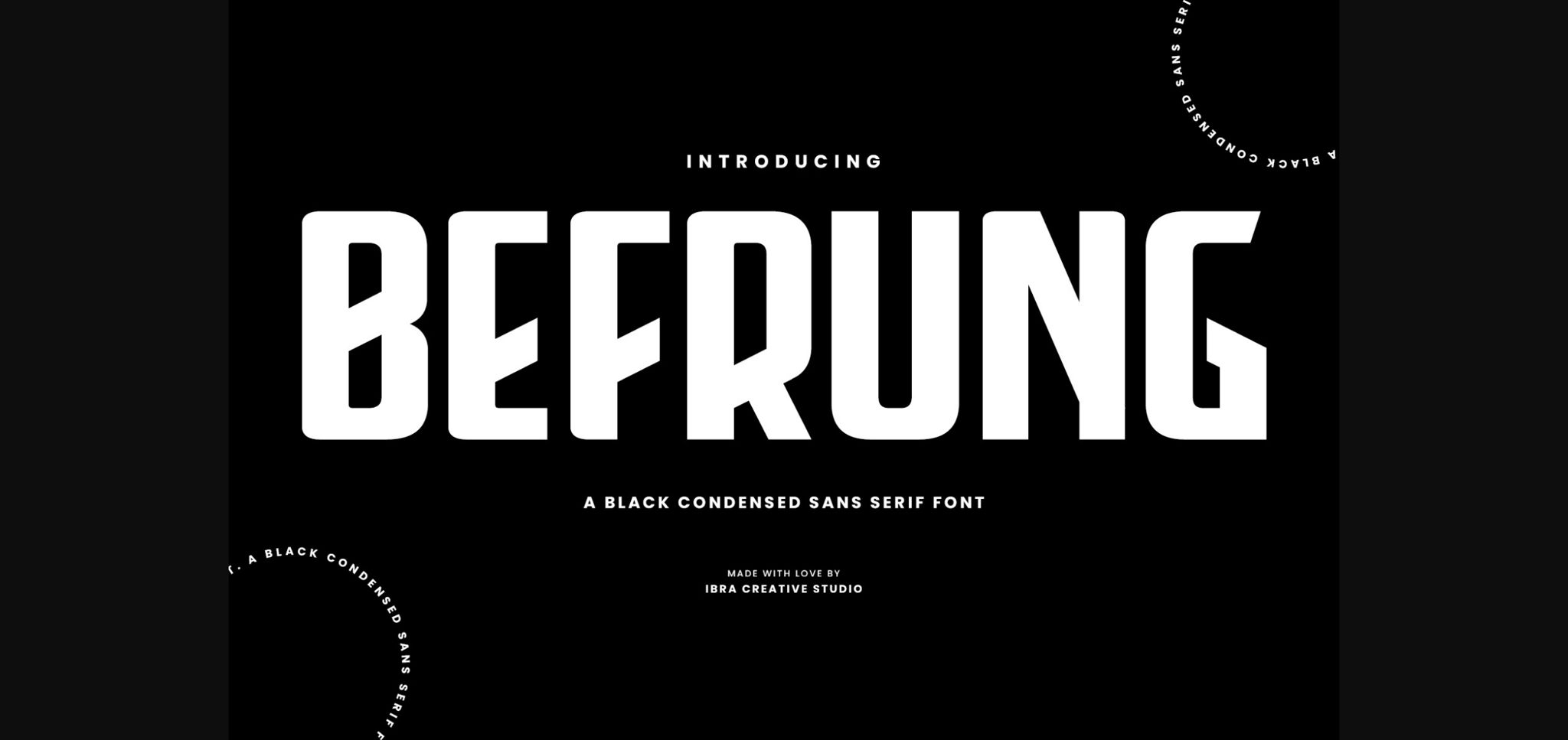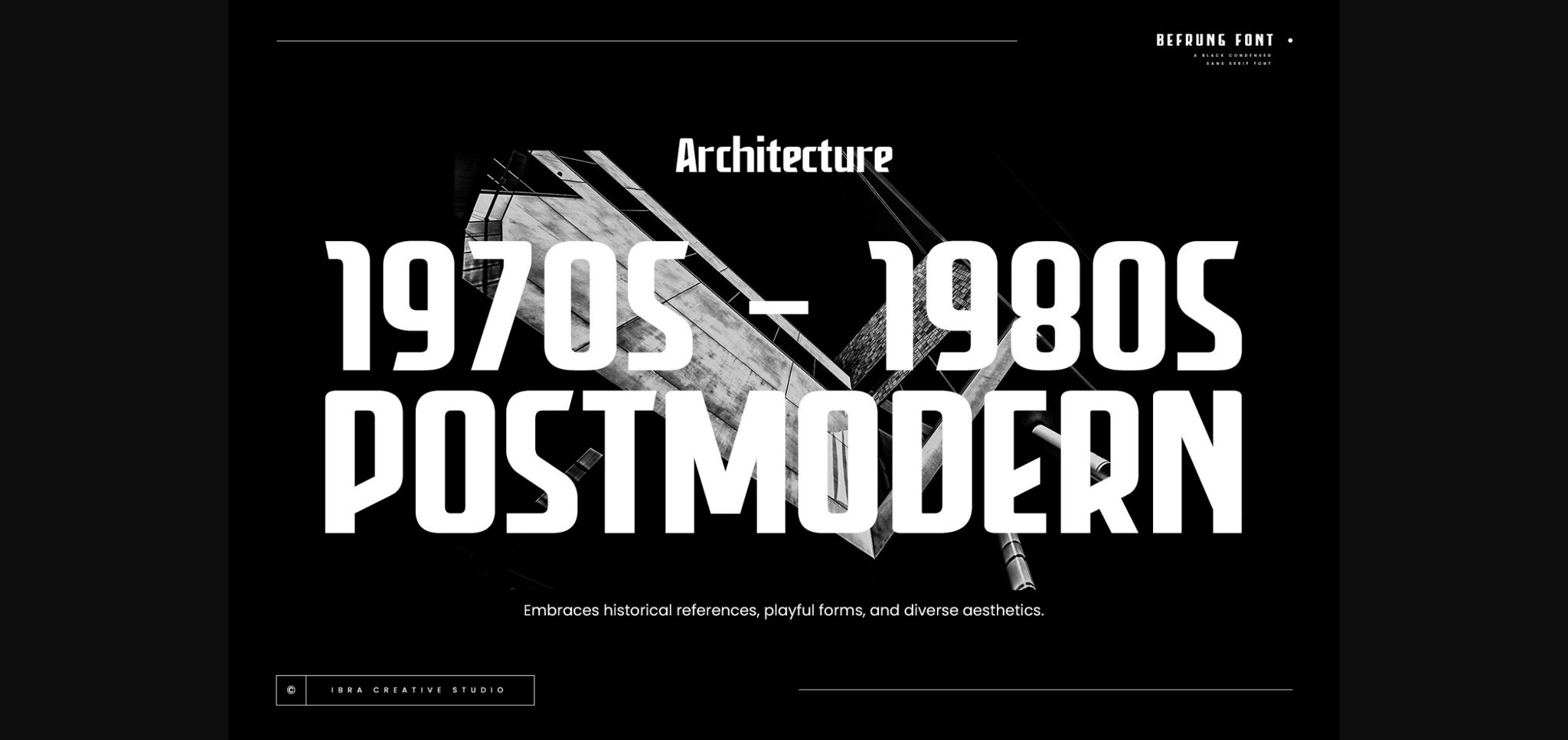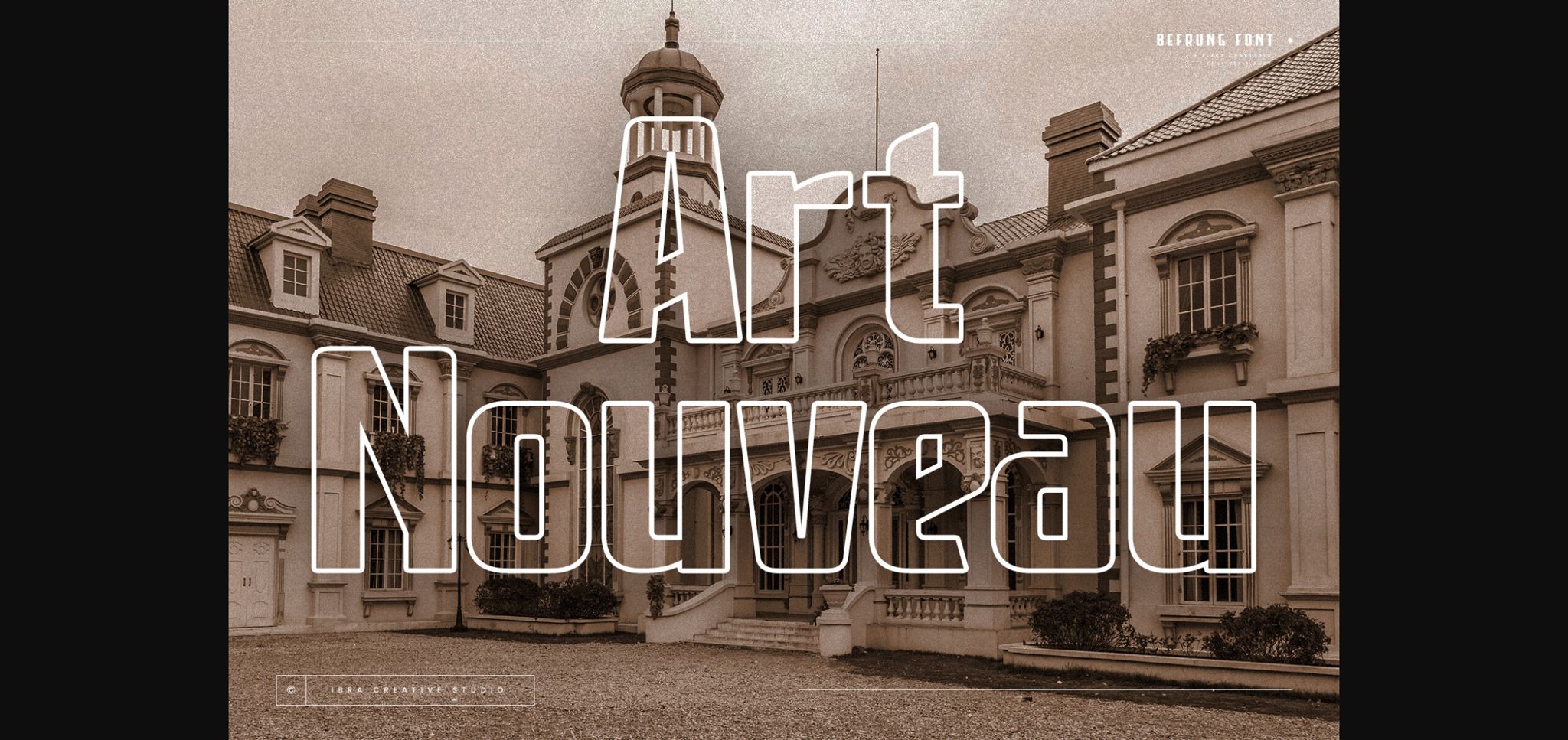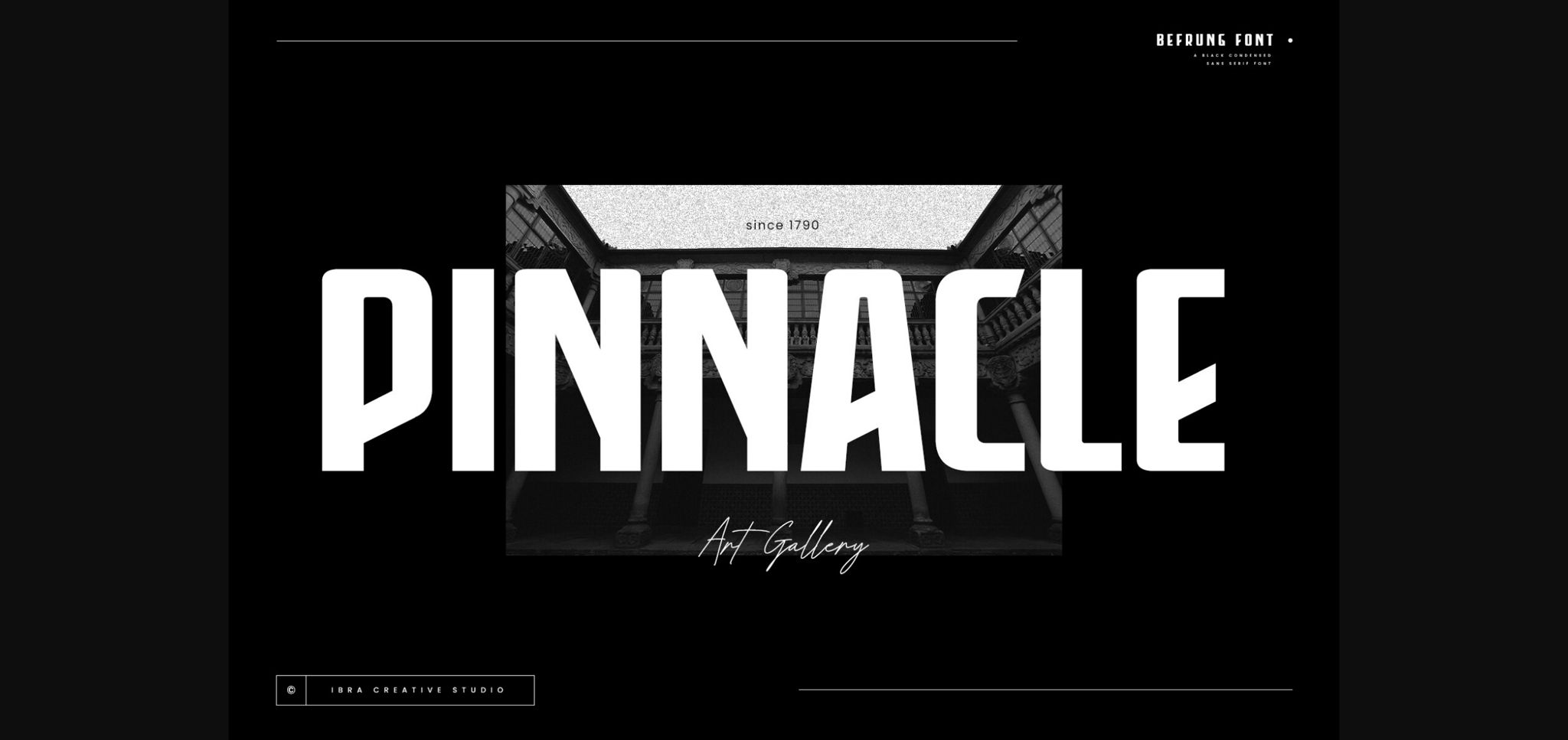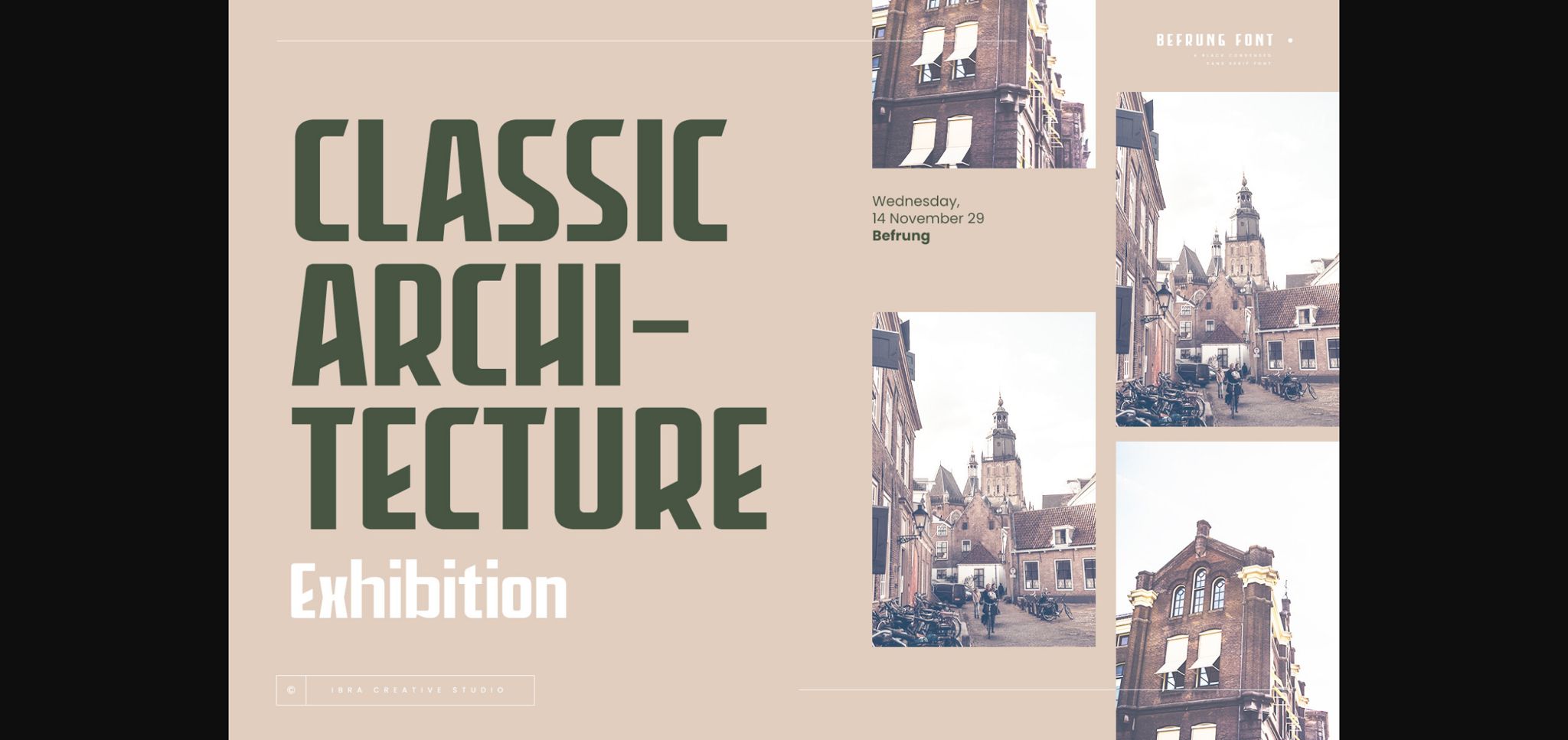
About Befrung Font
Berfung is an elegant and commanding black condensed sans-serif font that exudes a sense of modern sophistication. With its tall, slender letterforms, this typeface makes a bold statement, offering a perfect balance between space efficiency and visual impact. The even stroke width and sharp edges contribute to its contemporary aesthetic, while the condensed design allows for efficient use of space, making it ideal for impactful headlines, striking signage, and sleek branding applications.